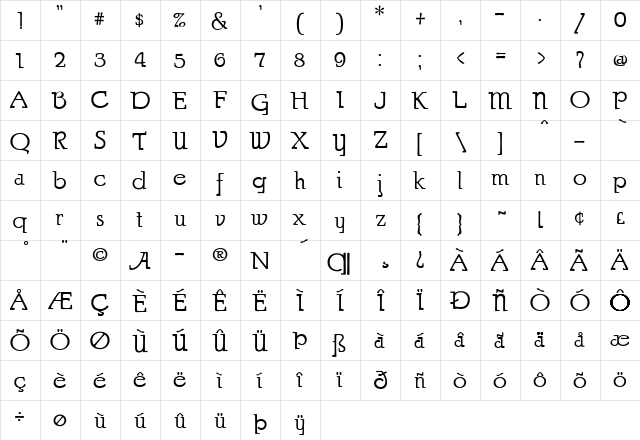
AIParsons Light
Design Context for AIParsons Typeface
AIParsons is a composed and adaptable typeface that performs quietly and consistently across a wide range of design contexts. The delicate stroke weight brings airiness and refinement to layouts.